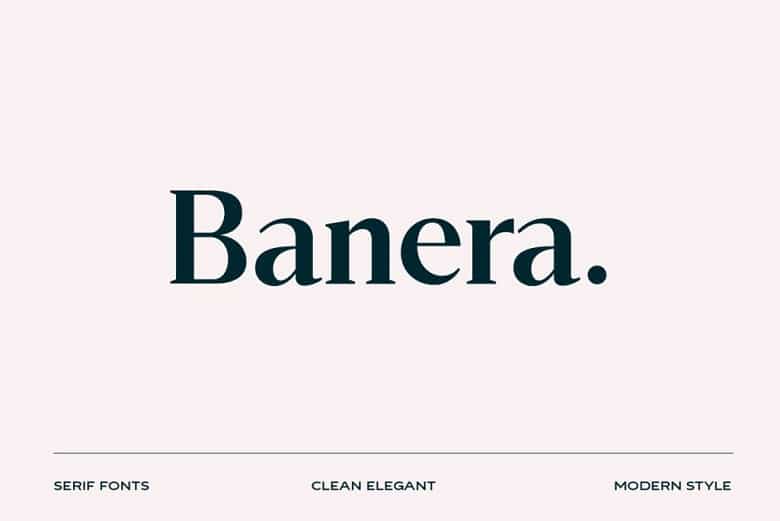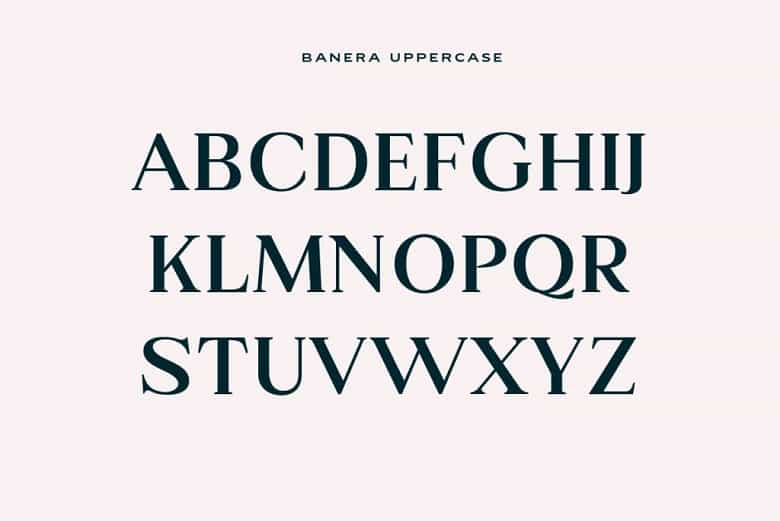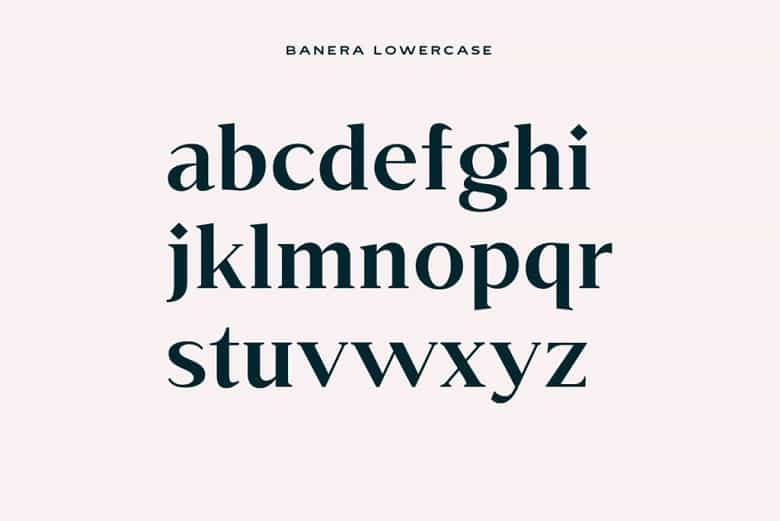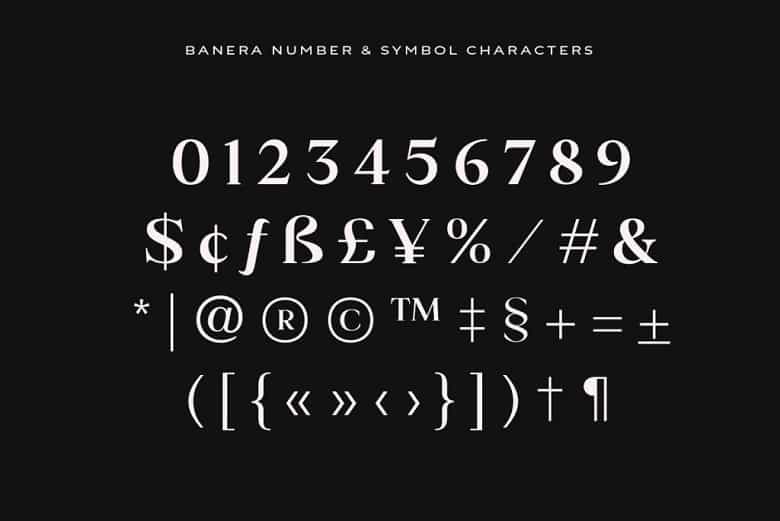
Banera is a display serif font with strong characteristics of elegance and courage, trying to capture and amaze. Due to its contrasting look and strong appearance Banera is ideal for creating eye-catching headlines, advertisements, and packaging.